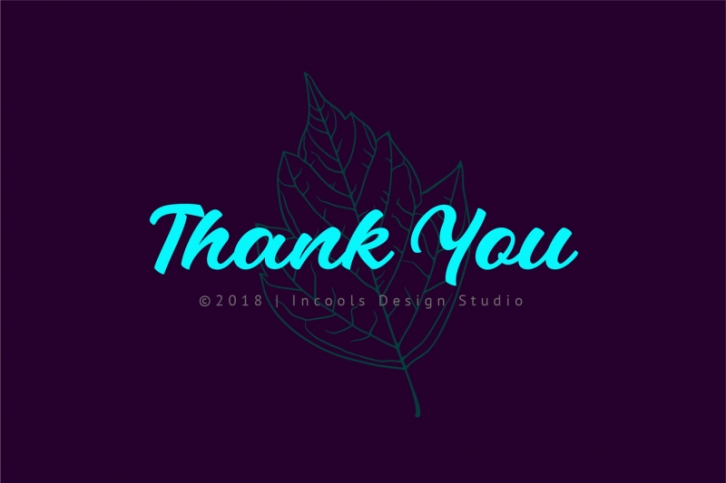
an awesome, clean, smooth finished script created carefully with full lotta love. Vladiviqo comes with Uppercase, Lowercase, Punctuation and all the symbol you have ever need. Of course it come with alternates for sure.